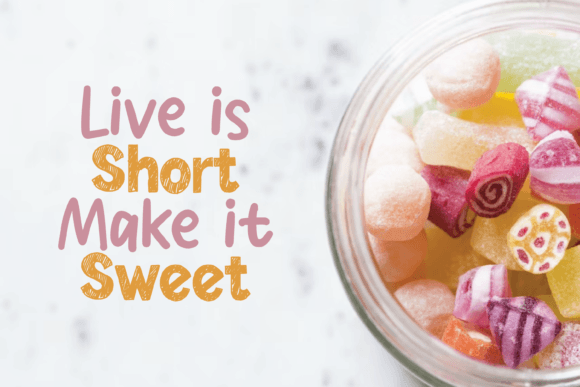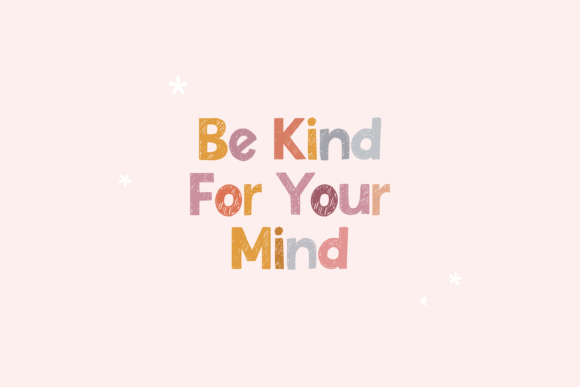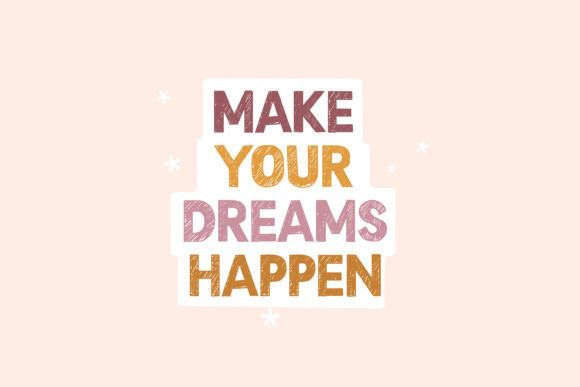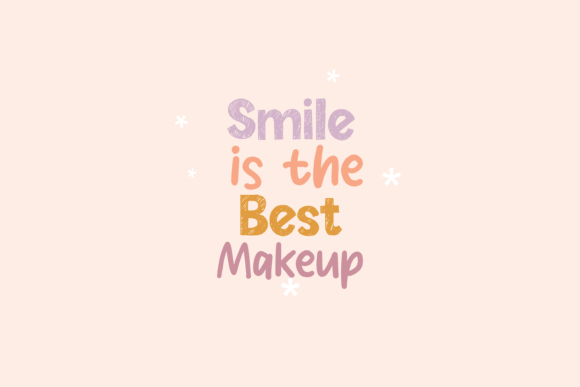
Introducing Butter Cookie Font: The Sweetest Addition to Your Fonts Library
Are you tired of using the same old fonts in your designs? Look no further! Butter Cookie Font is here to add a dash of fun and playfulness to your creative projects. This bold and cheerful display font is sure to make your designs stand out from the crowd.
The Charm of Butter Cookie Font
Butter Cookie Font is a fun, bold, and cheerful display font that is sure to capture the attention of your audience. Its chubby characters and lighthearted nature make it a must-have in your fonts library. The font’s playful design is perfect for expressing your creative and playful design ideas.
Key Features of Butter Cookie Font
- Fun and Playful Design: Butter Cookie Font features chubby characters that give it a fun and playful look.
- Bold and Cheerful: The font’s bold and cheerful design makes it perfect for display purposes.
- Lighthearted Nature: The font’s lighthearted nature makes it ideal for designs that require a playful touch.
- Easy to Read: Despite its playful design, Butter Cookie Font is easy to read, making it perfect for headlines and titles.
Uses of Butter Cookie Font
Butter Cookie Font is a versatile font that can be used in a variety of design projects, including:
- Logos and Branding: The font’s playful design makes it perfect for logos and branding projects that require a fun and creative touch.
- Posters and Flyers: Butter Cookie Font is ideal for posters and flyers that require a bold and attention-grabbing headline.
- Social Media Graphics: The font’s playful design makes it perfect for social media graphics, such as Facebook posts and Instagram stories.
- Crafting and DIY Projects: Butter Cookie Font is also perfect for crafters and DIY enthusiasts who want to add a personal touch to their projects.
Why Designers and Crafters Love Butter Cookie Font
Designers and crafters love Butter Cookie Font for its unique and playful design. The font’s bold and cheerful nature makes it perfect for designs that require a fun and creative touch. Additionally, the font’s ease of use and versatility make it a must-have in any designer’s or crafter’s fonts library.
Tips for Using Butter Cookie Font
Here are some tips for using Butter Cookie Font in your designs:
- Use it as a Display Font: Butter Cookie Font is perfect for display purposes, such as headlines and titles.
- Pair it with Other Fonts: The font pairs well with other fonts, such as sans-serif fonts, to create a unique and visually appealing design.
- Experiment with Colors: Butter Cookie Font looks great in a variety of colors, so don’t be afraid to experiment and find the perfect color for your design.
In conclusion, Butter Cookie Font is a fun, bold, and cheerful display font that is sure to add a dash of playfulness to your designs. Its chubby characters and lighthearted nature make it a must-have in your fonts library. Whether you’re a designer or crafter, Butter Cookie Font is the perfect addition to your creative projects.